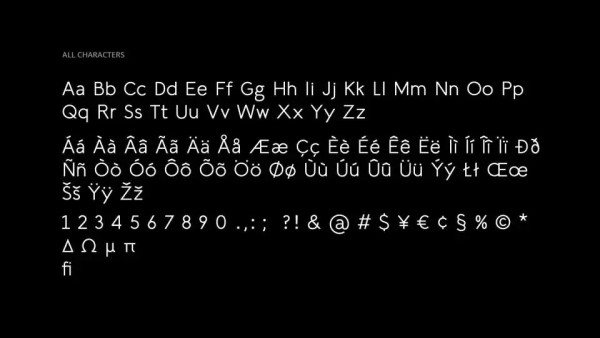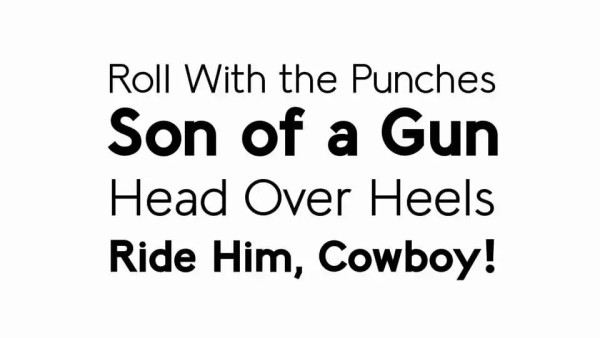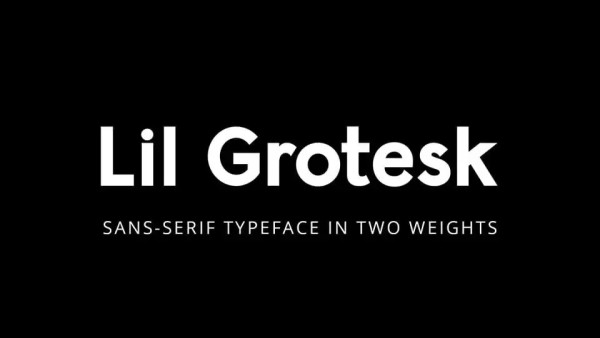
Lil Grotesk Font
Lil Grotesk Font is a rounded sans-serif type family based on geometric forms. It comes in Regular and Bold weights, contains a full glyph set, including multilingual support. Lil Grotesk font is perfect for headlines, short texts, posters, logos, branding and more.